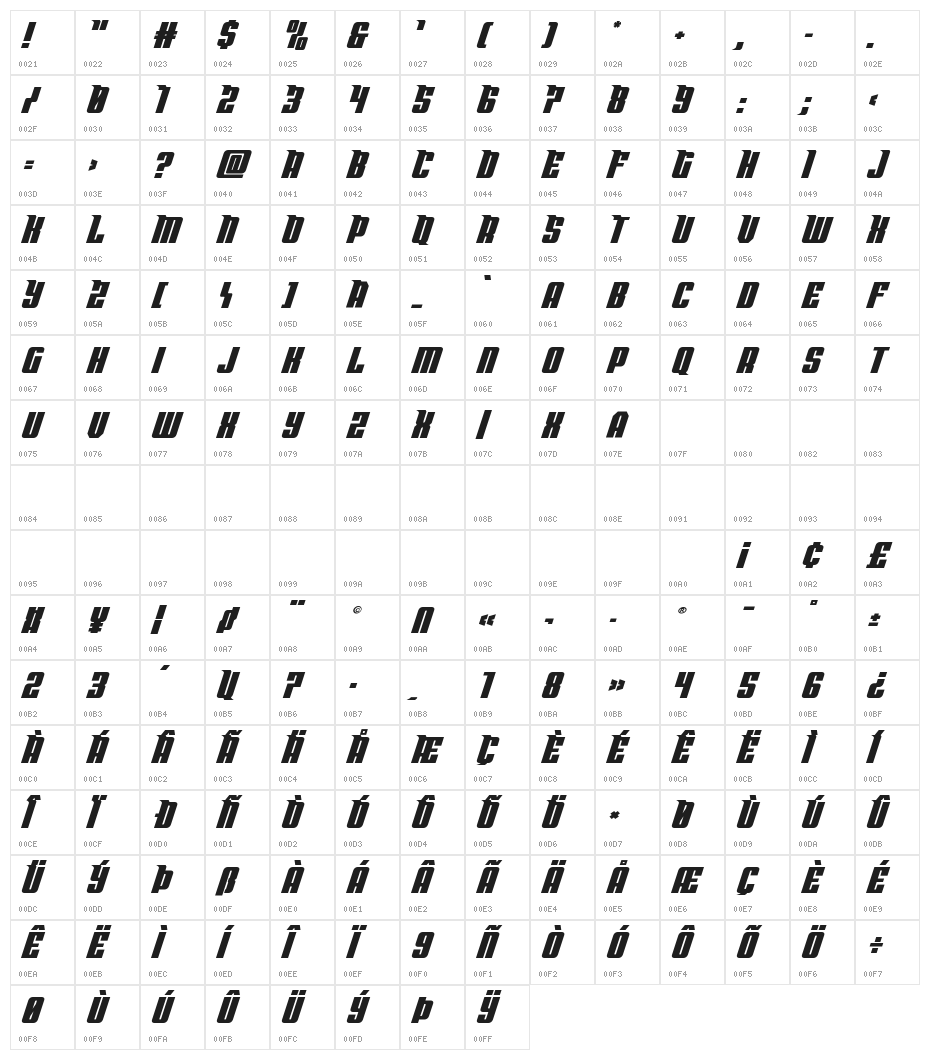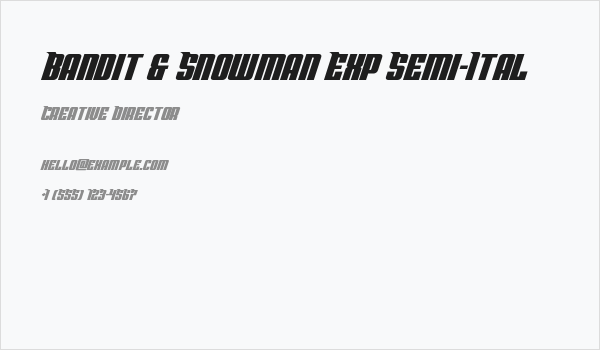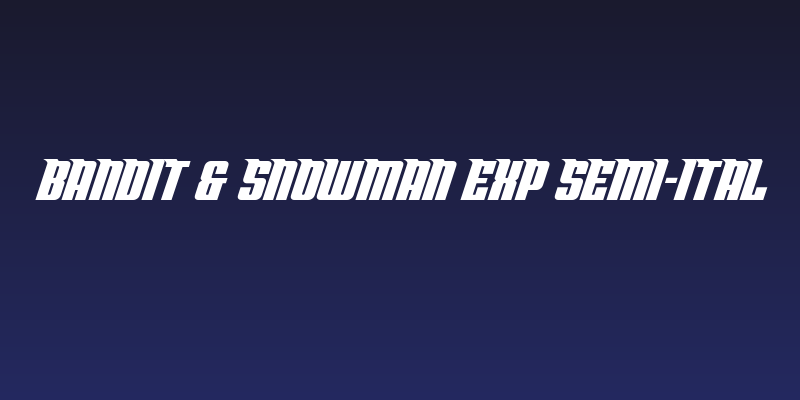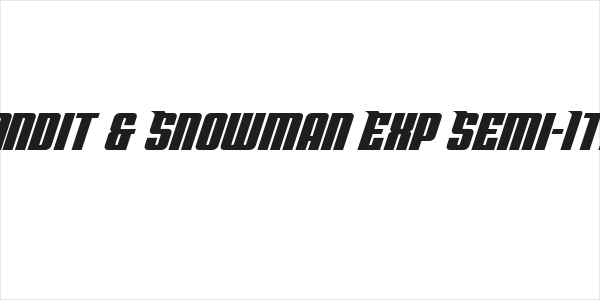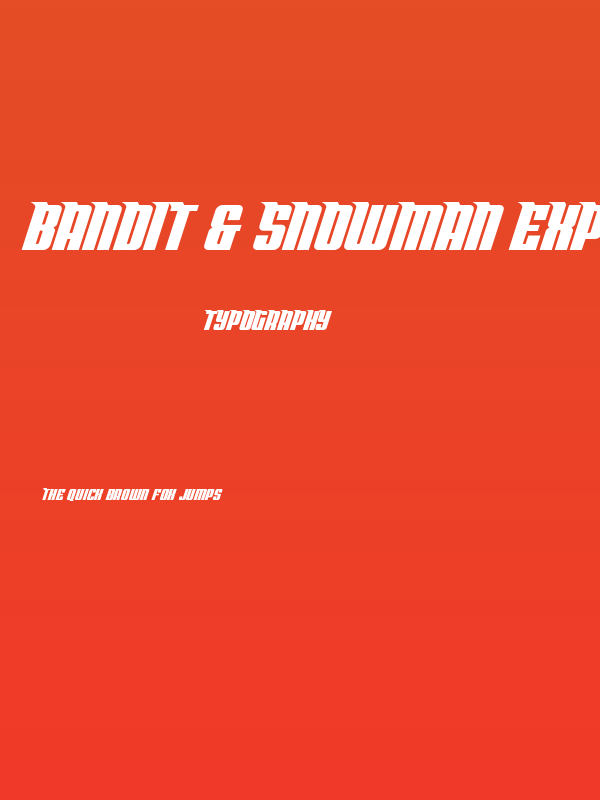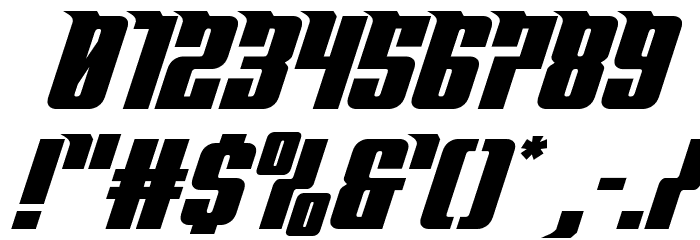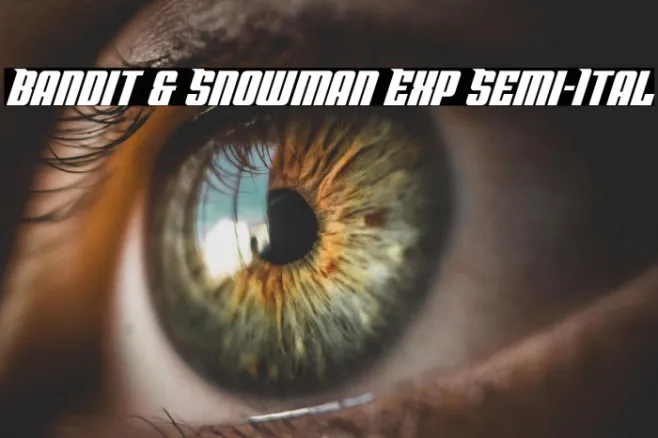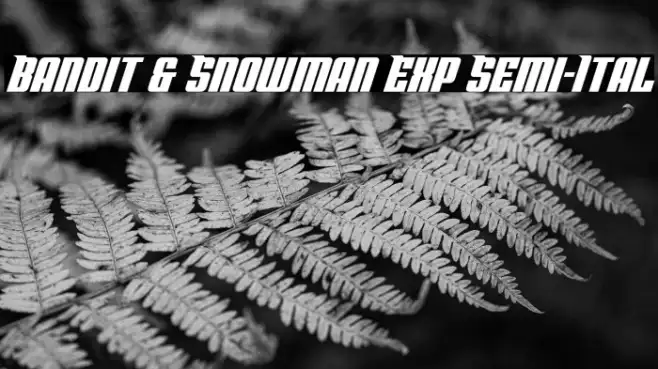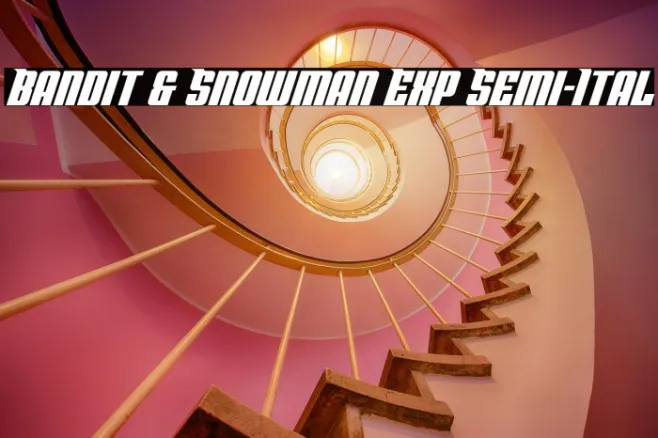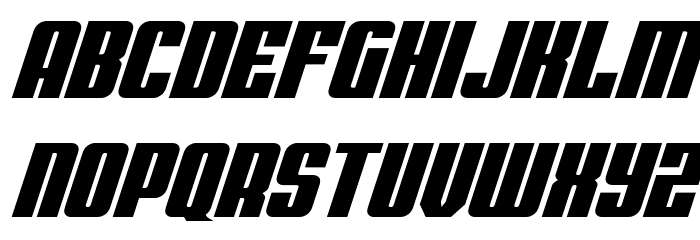
Bandit & Snowman Exp Semi-Ital Font
Bandit & Snowman Exp Semi-Ital Description
This font features a bold and dynamic design with a strong emphasis on angular lines and a forward-leaning stance, giving it a sense of motion and energy. The characters are tightly spaced, enhancing its compact and impactful appearance. The uppercase letters are particularly striking, with sharp edges and a consistent slant that adds to its aggressive style. The numerals and special characters maintain this bold aesthetic, ensuring uniformity across all glyphs. This font is ideal for projects that require a strong visual impact and a modern, edgy feel.